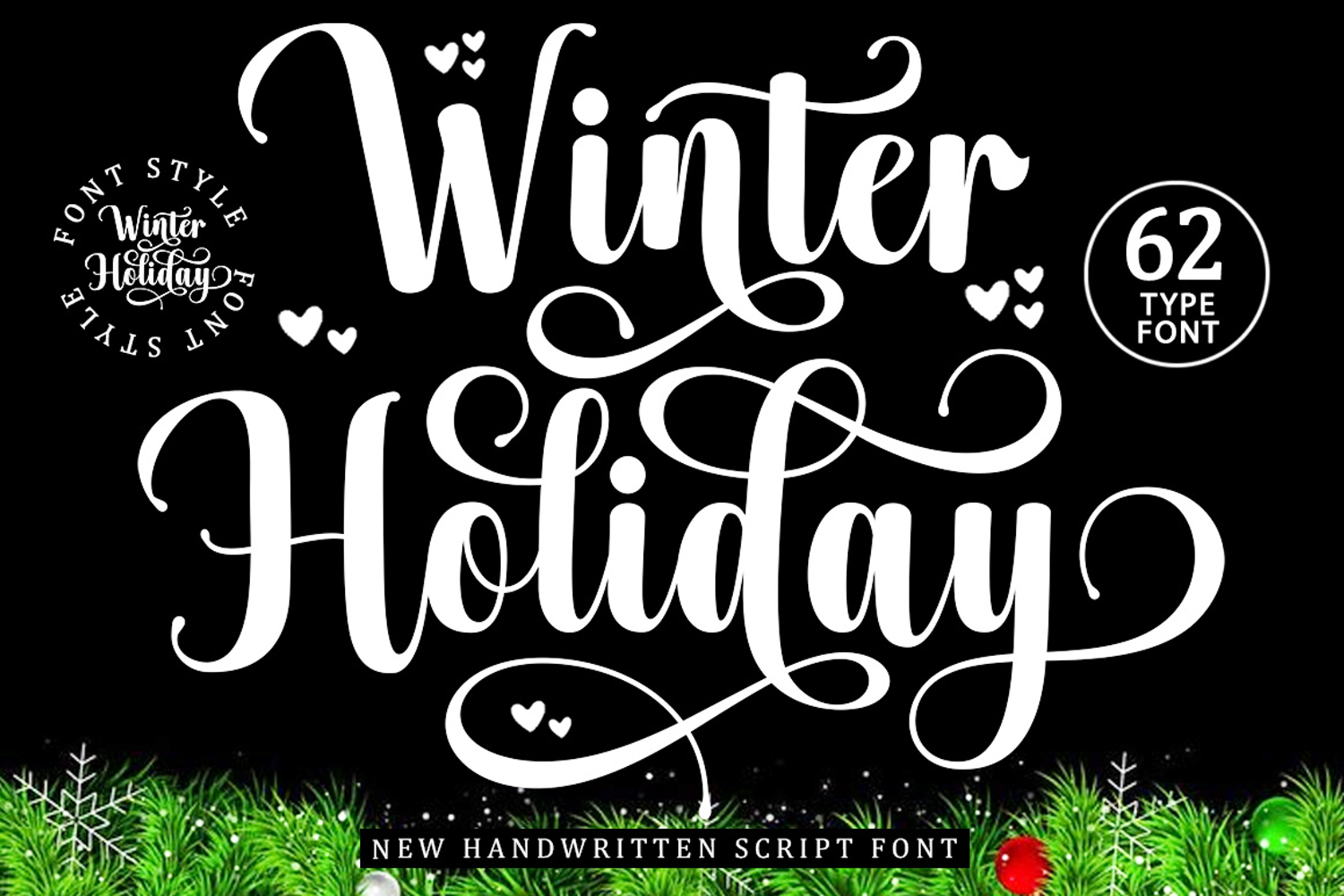
Winter Holiday - Family Font In 62 Type
Winter Holiday Family Script Font Collection is a collection of 62 beautifully designed fonts with a modern and elegant touch, exuding elegance.
Winter Holiday font is sleek, clean, feminine, sensual, glamorous, simple, and highly readable thanks to its many beautiful letter connections. I also offer several stylistic alternatives for some of the letters. This elegant style is perfect for use in a variety of formal applications such as invitations, labels, restaurant menus, logos, fashion, makeup, stationery, novels, magazines, books, greeting/wedding cards, packaging, labels, or any type of advertising use.